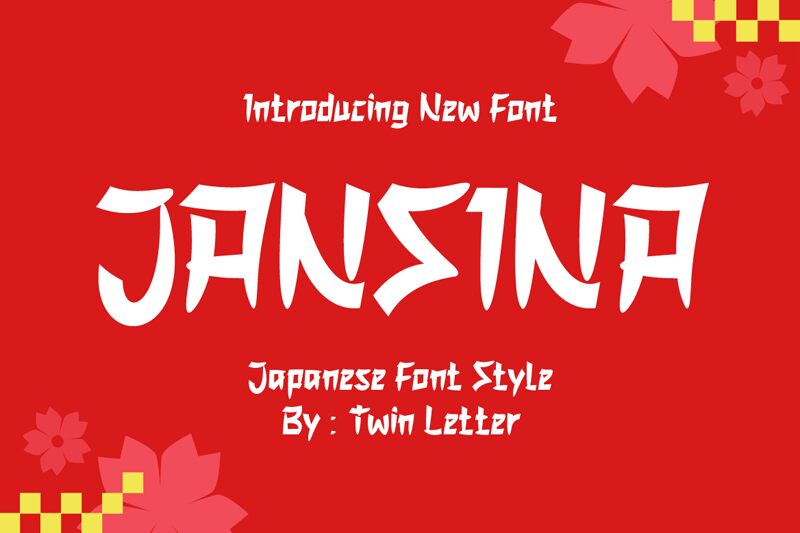
JANSINA Regular
JANSINA, the foreign font created by twinletter is a masterpiece that will instantly transport you to the vibrant and fascinating world of Japanese culture. Its brilliant strokes and semi-bold weight make it perfect for a wide range of projects - from creating stunning designs for Japanese restaurants or tea shops to designing powerful logos for martial arts studios. With JANSINA, you can infuse your designs with an exotic charm that will captivate your audience and leave them wanting more. So, immerse yourself in the beauty of this font and let your creativity run wild!